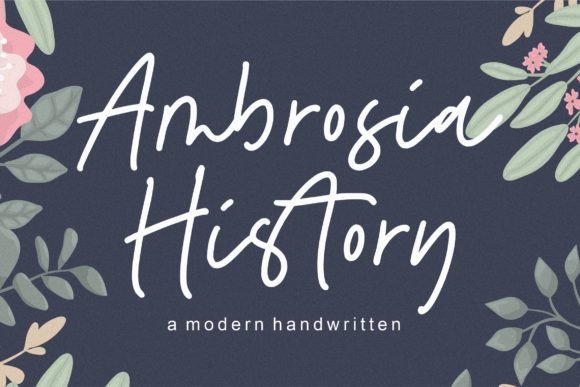
Introducing Ambrosia History, the Monoline Handwritten font that captivates with its clean lines, elegant structure, and timeless appeal. Designed by Balpirick, this extraordinary font offers a seamless blend of modernity and sophistication, making it the ideal choice for discerning designers seeking a touch of grace in their projects.
Immerse yourself in the world of Ambrosia History, where effortless lines dance across the page, leaving a trail of understated elegance. Its inherent versatility shines through, as it effortlessly adapts to a myriad of design endeavors, effortlessly elevating logos, branding, invitations, packaging, and more.
With Ambrosia History as your creative companion, your designs will radiate a timeless charm that transcends trends. Its simplicity, coupled with its refined aesthetic, ensures that every project you undertake bears the mark of distinction. Prepare to captivate your audience with designs that leave an everlasting impression, thanks to the enchanting allure of Ambrosia History.